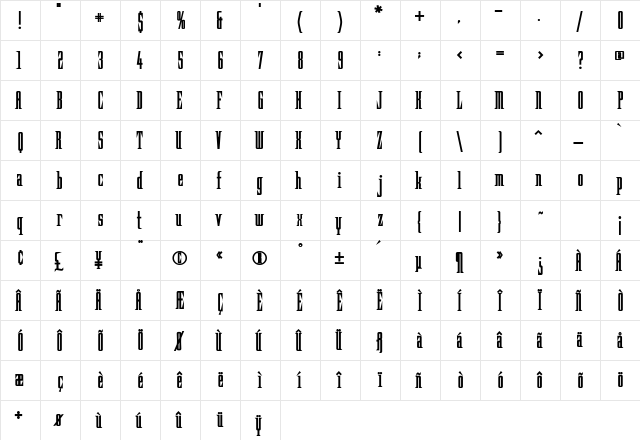
BonaireLightSSK Bold
Design Context for BonaireLightSSK Typeface
BonaireLightSSK is a composed and adaptable typeface that performs quietly and consistently across a wide range of design contexts. The heavy weight commands attention and anchors typographic hierarchies.